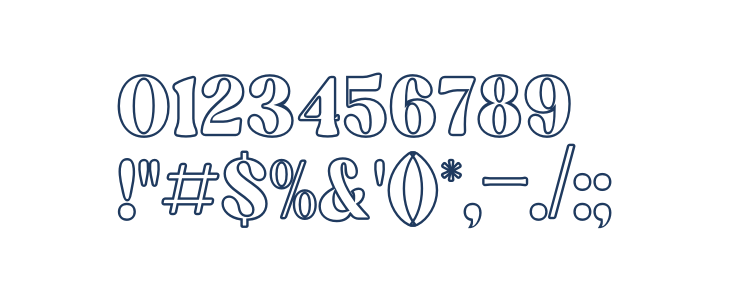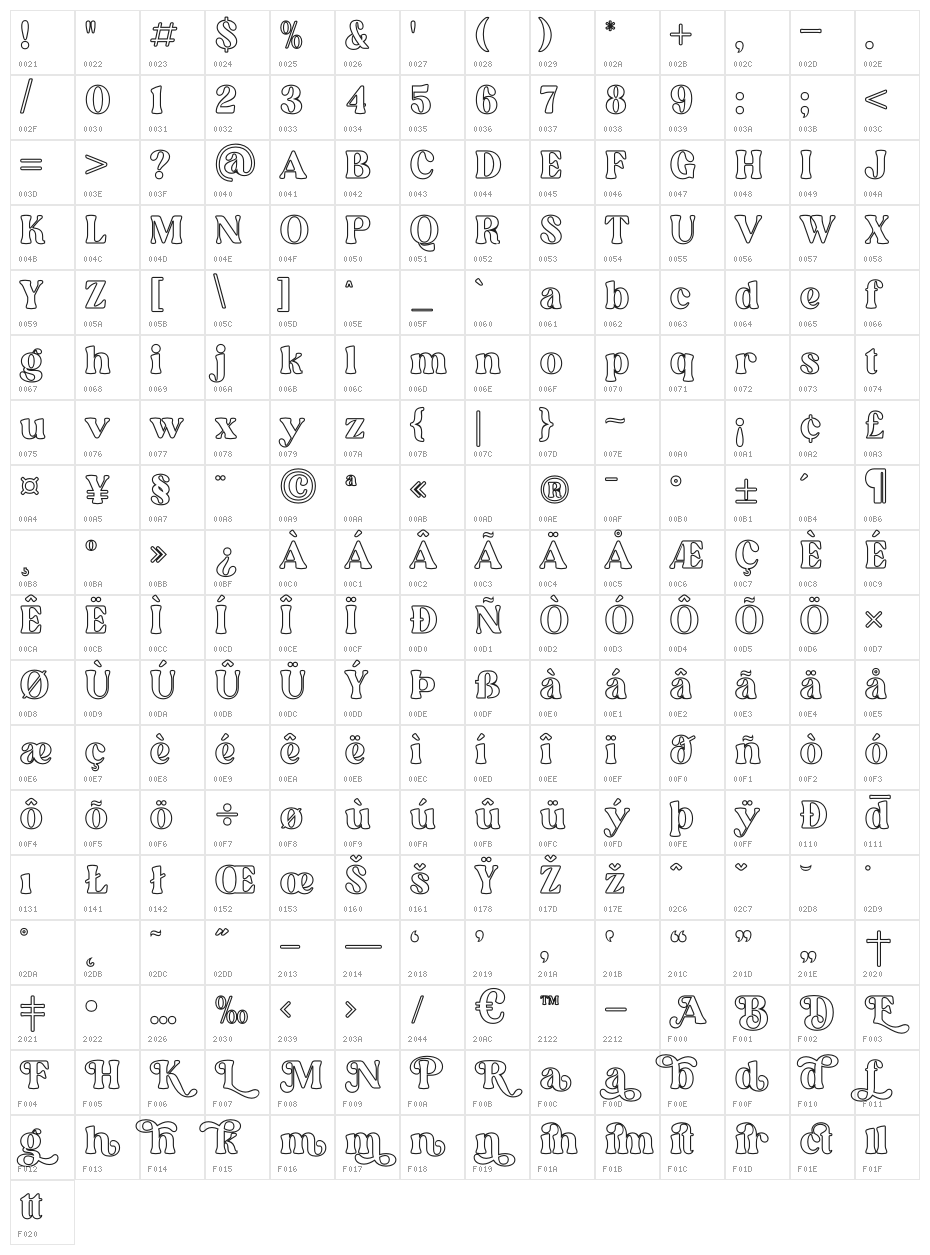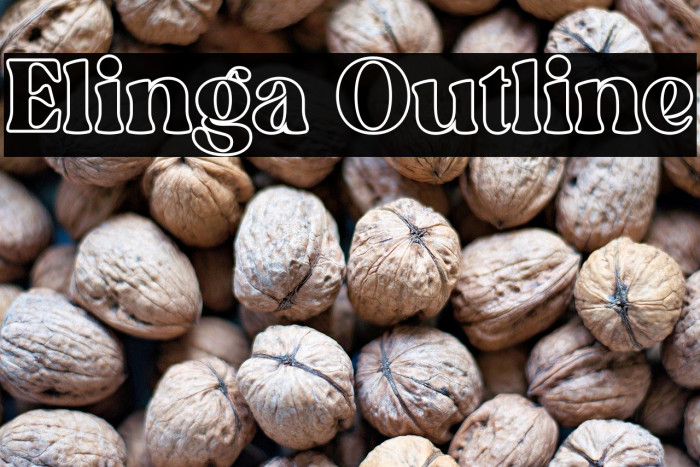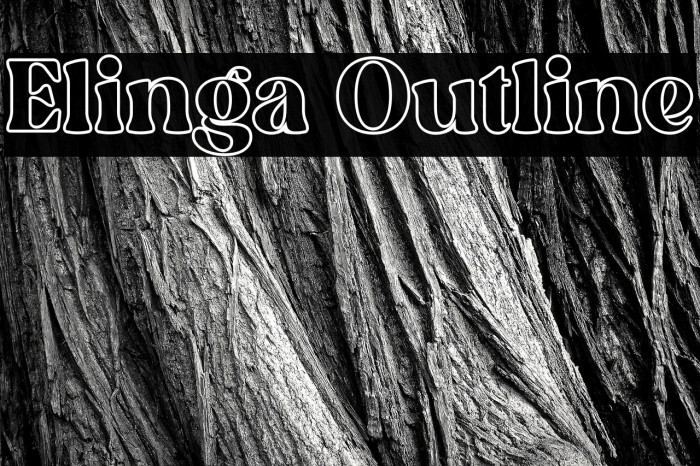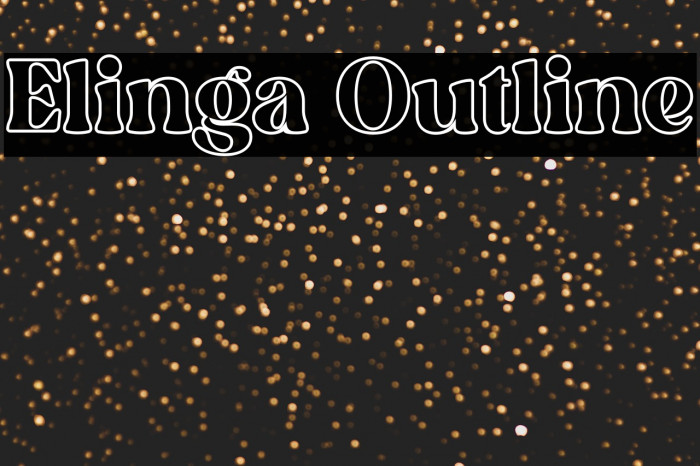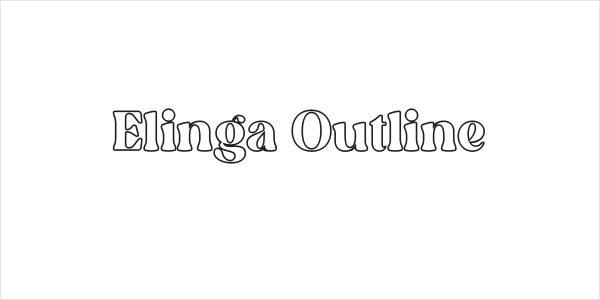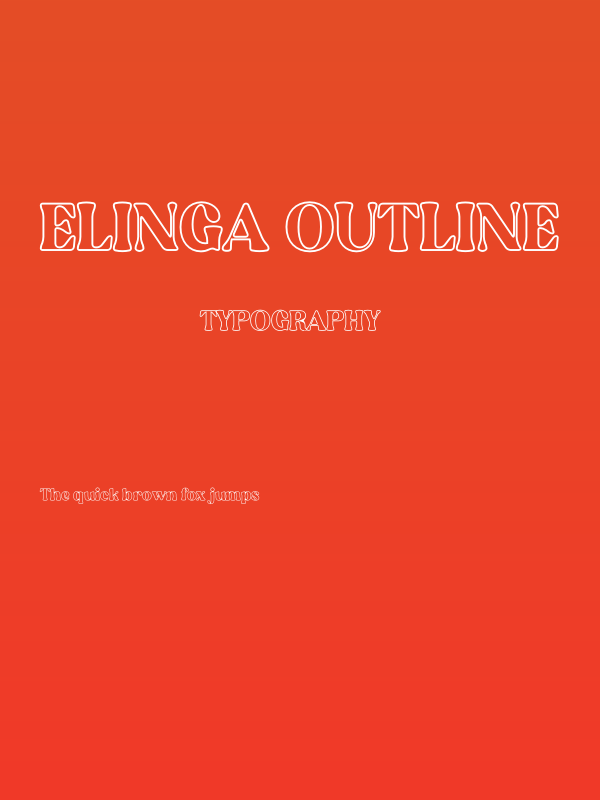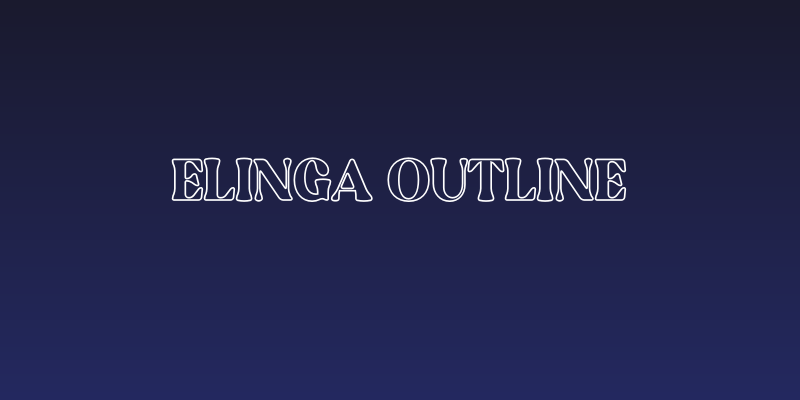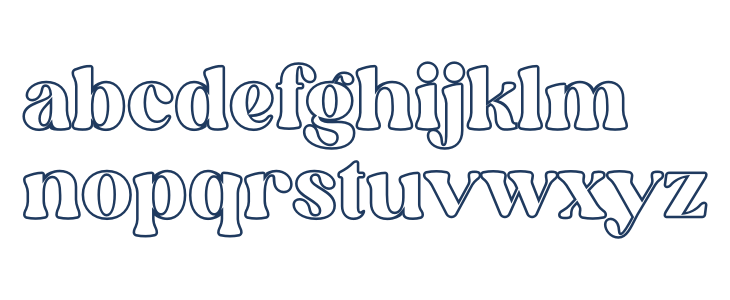
Elinga Outline Font
Elinga Outline Description
This font features a bold outline style that gives it a distinct and eye-catching appearance. The characters are designed with a hollow interior, emphasizing the bold contours that define each letter. This style creates a playful yet sophisticated look, making it suitable for a variety of creative applications. The uppercase and lowercase letters maintain a consistent width, while the numerals and special characters follow the same outlined aesthetic. The font's design is clean and modern, with a slight vintage touch due to its outline nature. It is versatile enough to be used in both digital and print media, offering a unique twist to standard typography.
| Overall Style | Modern, Vintage |
| Proposed Projects | Ideal for branding, headlines, posters, and any design project that requires a standout typographic element. |